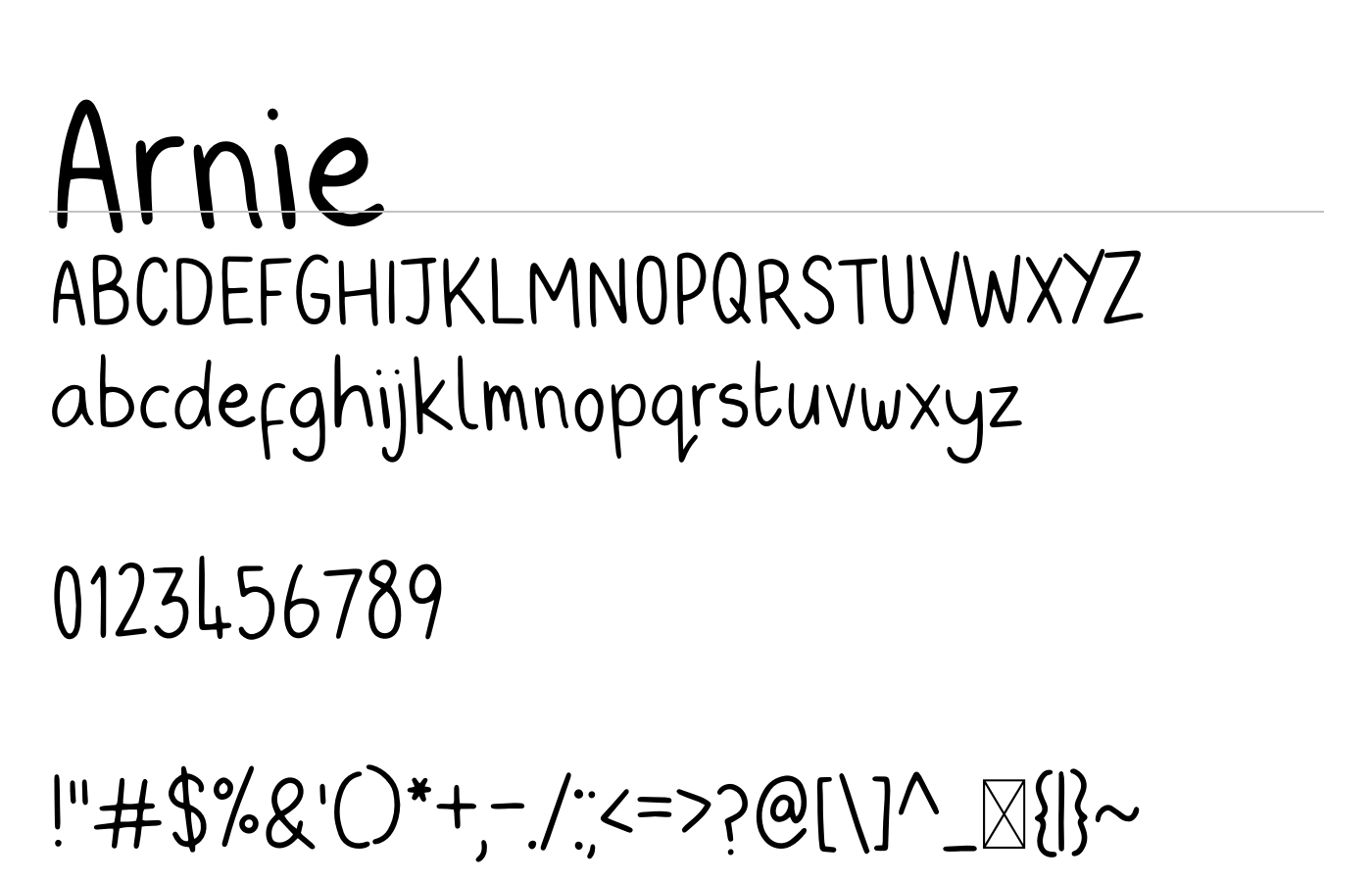
Arnie Font is a light, playful sans serif typeface with a handwritten feel, featuring narrow letterforms and an upright, casual style. Its smooth, rounded strokes combined with simple, slightly quirky shapes make it perfect for informal, friendly designs such as children's books, casual branding, and creative projects that benefit from a warm, approachable vibe. This font works well for headlines, logos, and any context where a relaxed and personal touch is desired.
Arnie Font